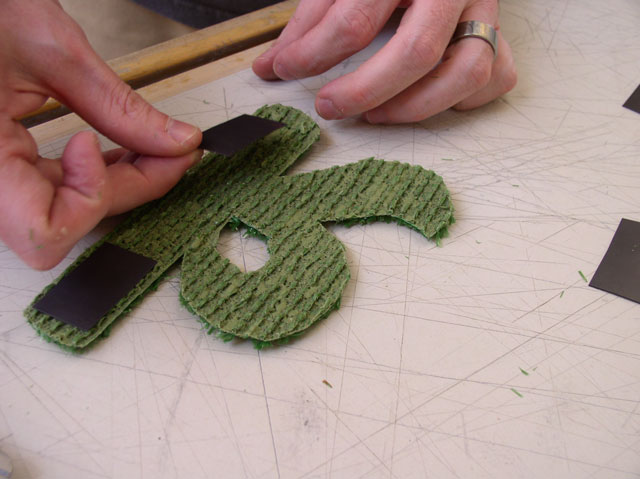
Shut up and listen final result
Process: Scouted locations appropriate for the message. Crafted message text. Sketched idea for implementation of message. Then created custom typography that was appropriate for the message of the installation.
Location: The elevator in the Adante Hotel on Geary. This particular elevator has a single door on the left side of the lift-when looking out from the inside. The door opens to the right becoming completely hidden behind a stainless panel.
Installation: The text was placed at eye level in an elevator. When one enters the elevator and stands facing forward they will be confronted by the word "talk." on the front right of the lift. As the door closes to the left, the words "we never" are revealed-attached to the sliding door.
Objective: to challenge the observer's preconceived behaviors, and have them think "Why do we avoid communication with others around us."
Alternate locations: TBD | |